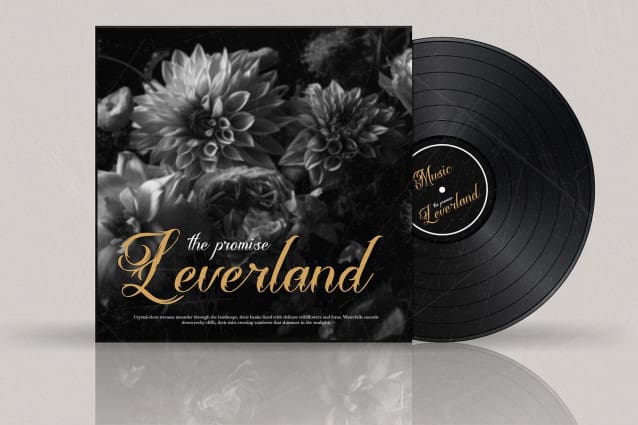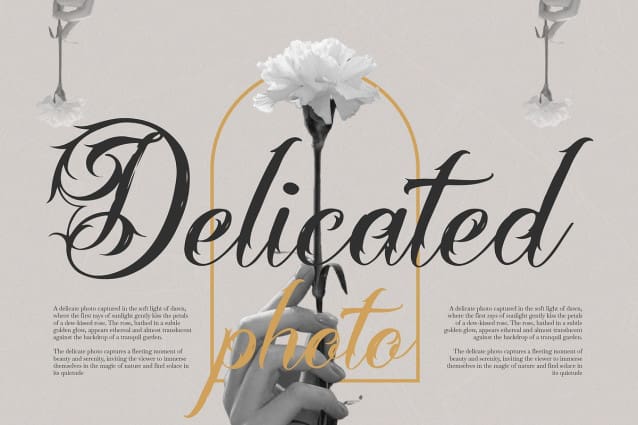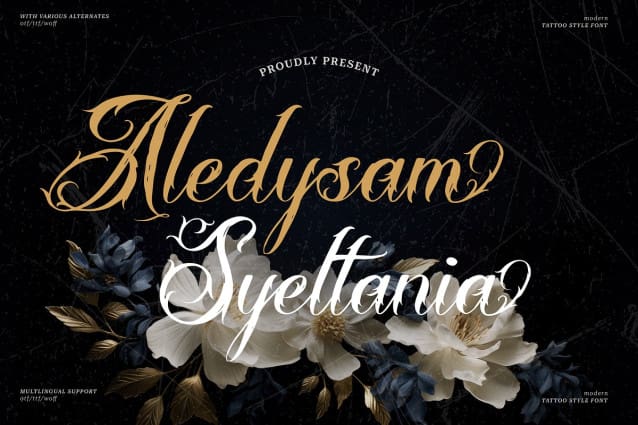
Aledysam Syeltania Font
Aledysam Syeltania Font | Tattoo Font, from Denustudios, suitable for any projects such as: logos, branding projects, homeware designs, product packaging, mugs, quotes, posters, shopping bags, t-shirts, book covers, name card, invitation cards, greeting cards, label, photography, watermark, special events, and all your other lovely projects that need a beautiful script taste.